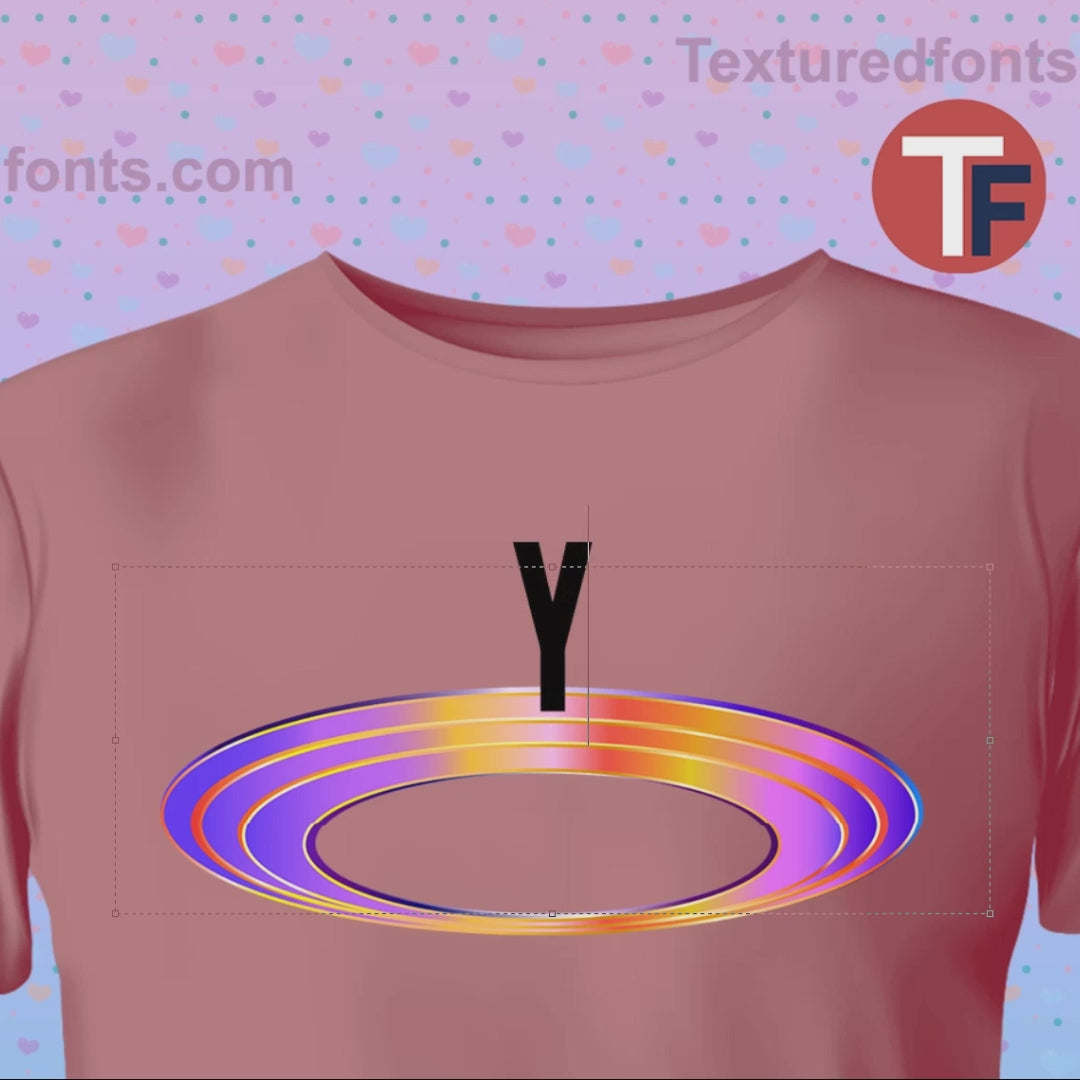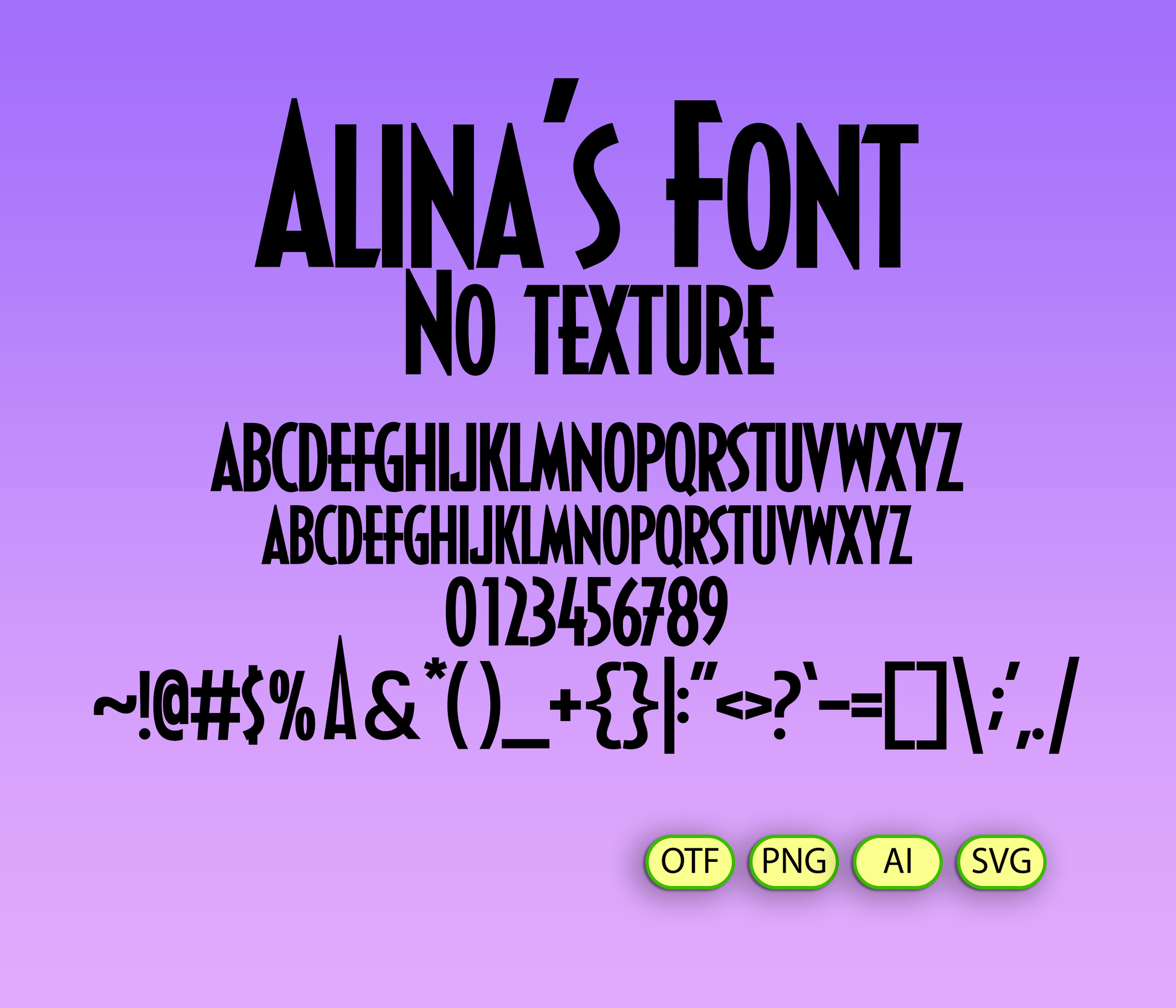
Space Adventure Font
Shoot for the Stars with the Space Adventure Font
Jump into the world of intergalactic basketball with our Space Adventure-inspired font. Perfect for fans, event organizers, and designers looking to capture the energetic and playful spirit of the iconic movie, this font embodies the vibrant, dynamic style of Space Adventure. Whether you're creating event invitations, designing themed merchandise, or crafting digital content, our Space Adventure font ensures your projects resonate with the excitement and nostalgia of this beloved franchise.
- to use the big "A" press shift + 6 (^ this symbol from keyboard)
Our Space Adventure-inspired font features bold, playful lines and futuristic elements that reflect the movie's blend of sports action and sci-fi adventure. This versatile font is ideal for a wide range of applications:
- Event Promotions: Perfect for creating eye-catching invites, posters, and banners for movie nights, sports events, or themed parties.
- Merchandise Design: Ideal for designing t-shirts, hats, and accessories that capture the fun and excitement of Space Adventure.
- Digital Media: Enhance websites, blogs, and social media content with vibrant headers and graphics.
- Educational Materials: Use in presentations, worksheets, and educational content focused on sports, teamwork, or storytelling.
- Personal Projects: Add a playful touch to scrapbooking, DIY crafts, or home decor inspired by the adventures of the animated basketball team.
Our Space Adventure font not only pays homage to the legendary film but also empowers you to infuse your designs with the energy and excitement that define Space Adventure. Whether you’re crafting promotional materials, designing unique merchandise, or adding a touch of cosmic fun to personal projects, this font allows you to communicate with the lively and adventurous spirit of the movie. Ready to take your creative projects to the next level? This font is your ticket to slam-dunking your designs with style and flair.